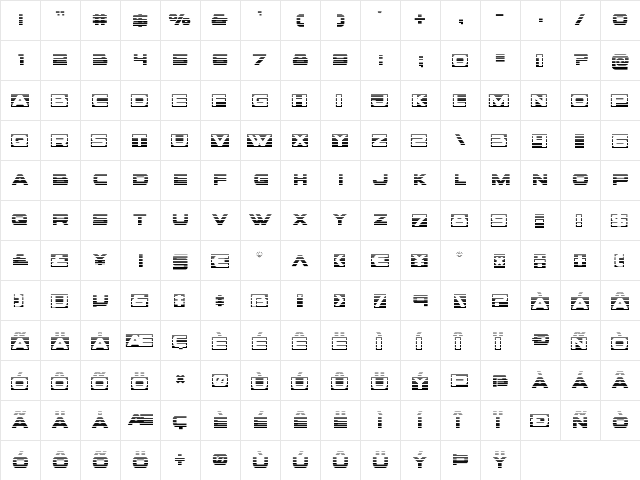
voxBOX Gradient Regular
Design Context for voxBOX Gradient Typeface
voxBOX Gradient takes a measured approach to typography — its balanced proportions and neutral character make it a reliable workhorse for both digital and print work.